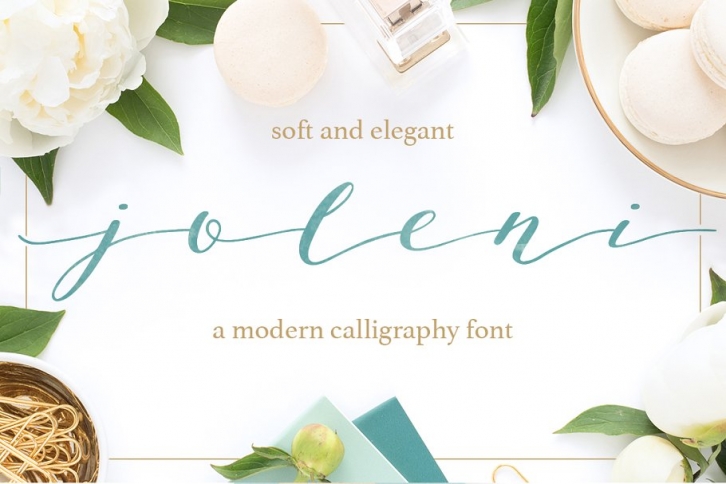
Joleni Font - Modern Calligraphy
A carefully handmade font. I really wanted it to come out soft and elegant. During the design process I imagined it smoothly blending in with a classic wedding stationery collection, floral wall art or feminine business logos or blog headers.
This is a premiere font. I think it stole a bit of my heart in the process.
It's a very wide script and the baseline has a subtle bounce for that modern feel.
• ligatures for rr ss aa
• alternates for a b h r &
lead in swash without using automatic OTF feauture
If you want the lead in swash as shown in the preview, type a § (section) symbol.